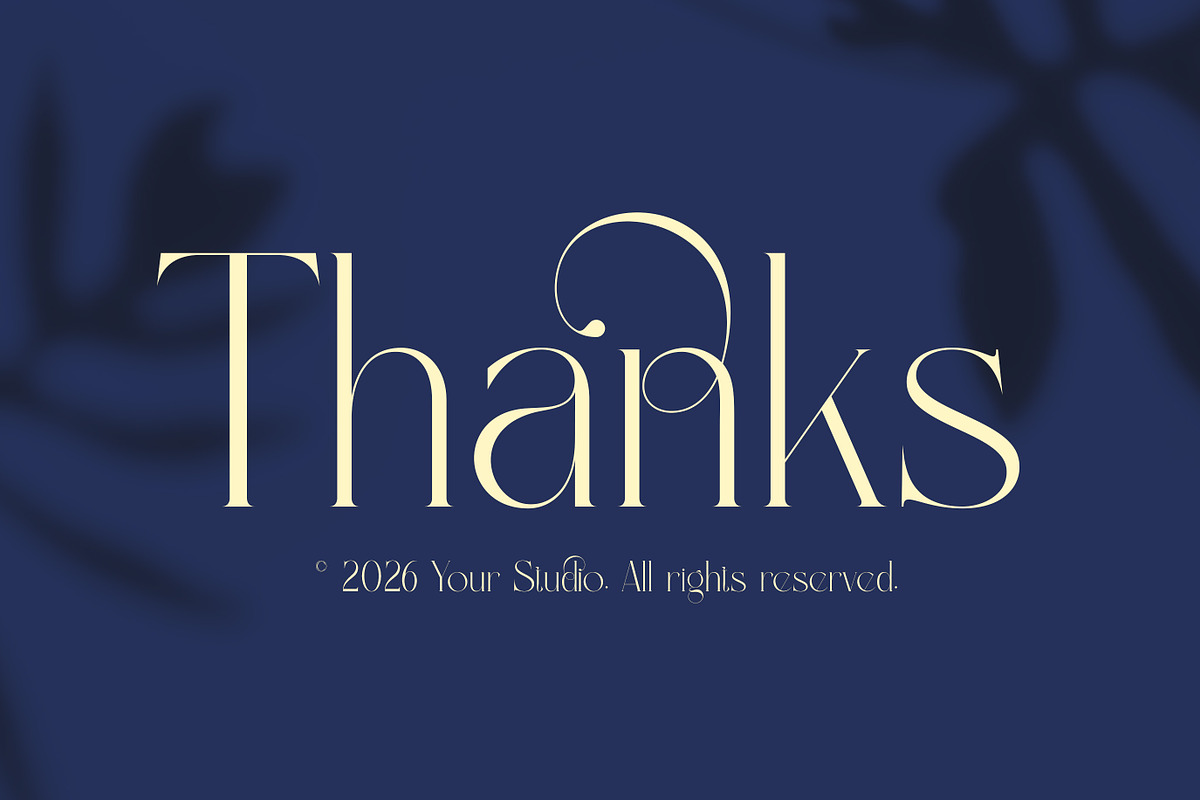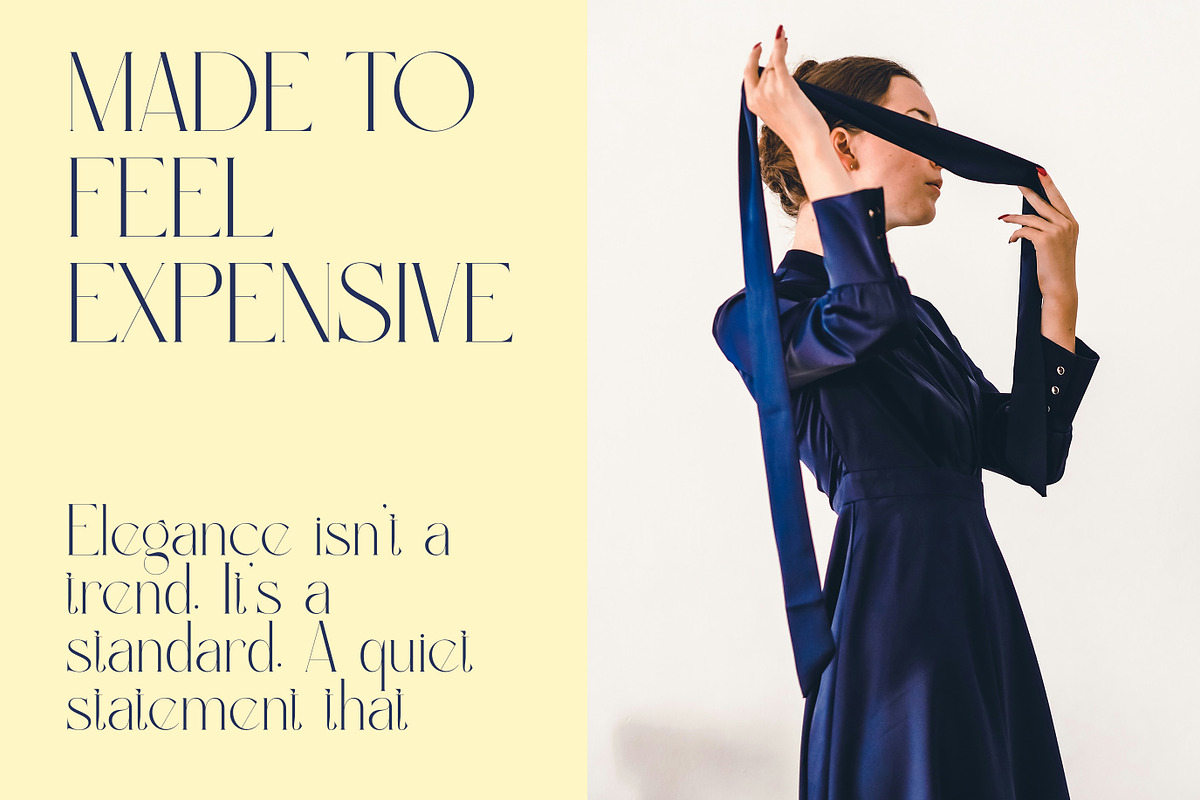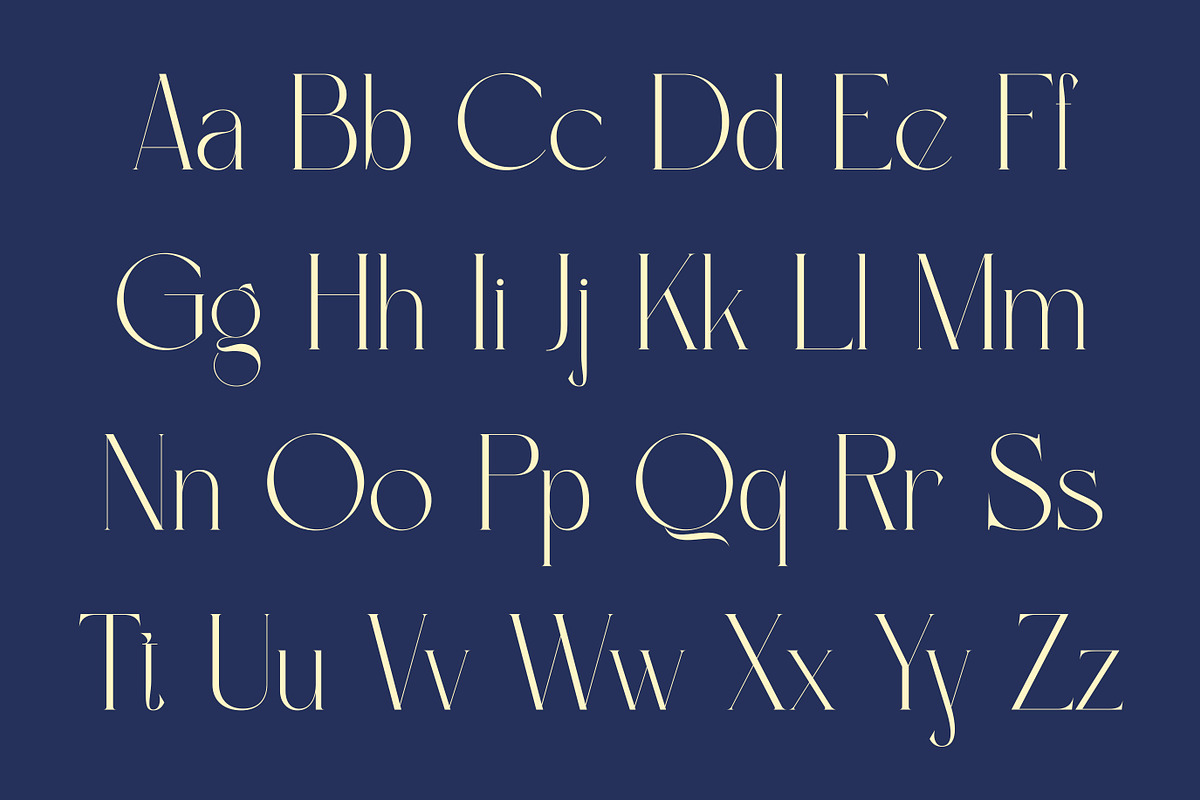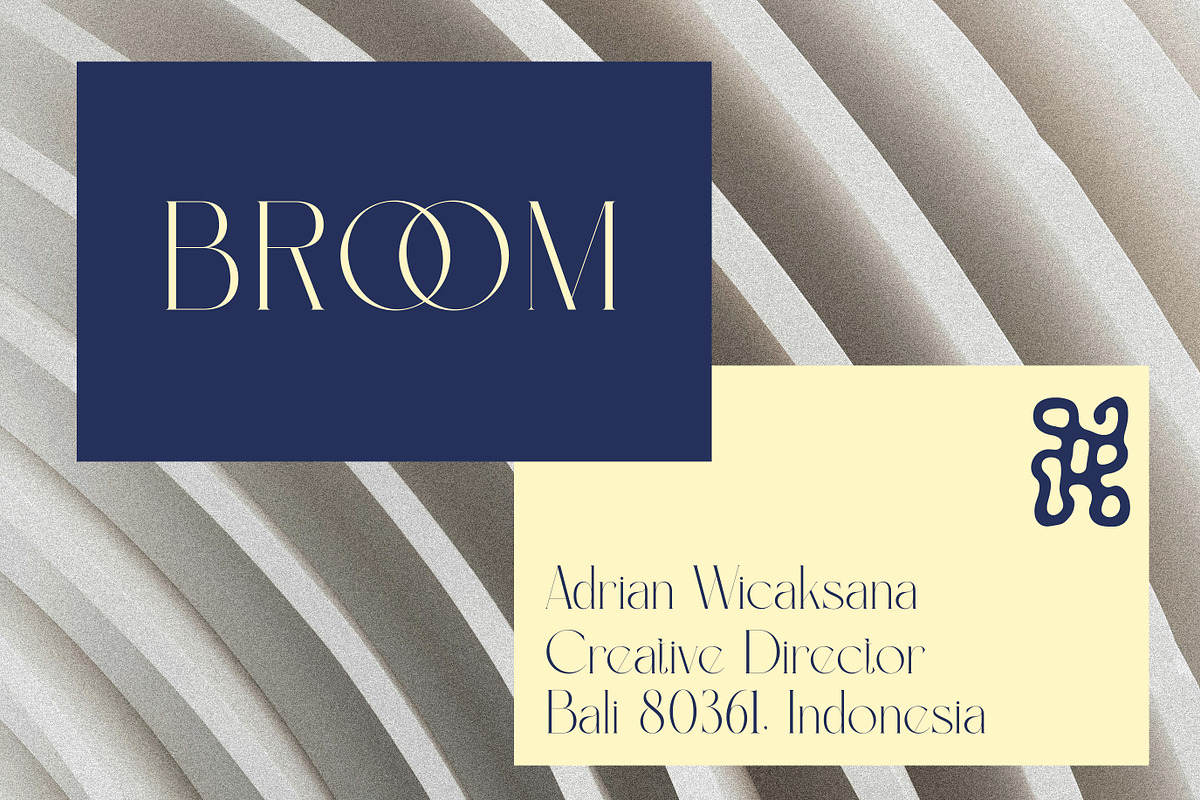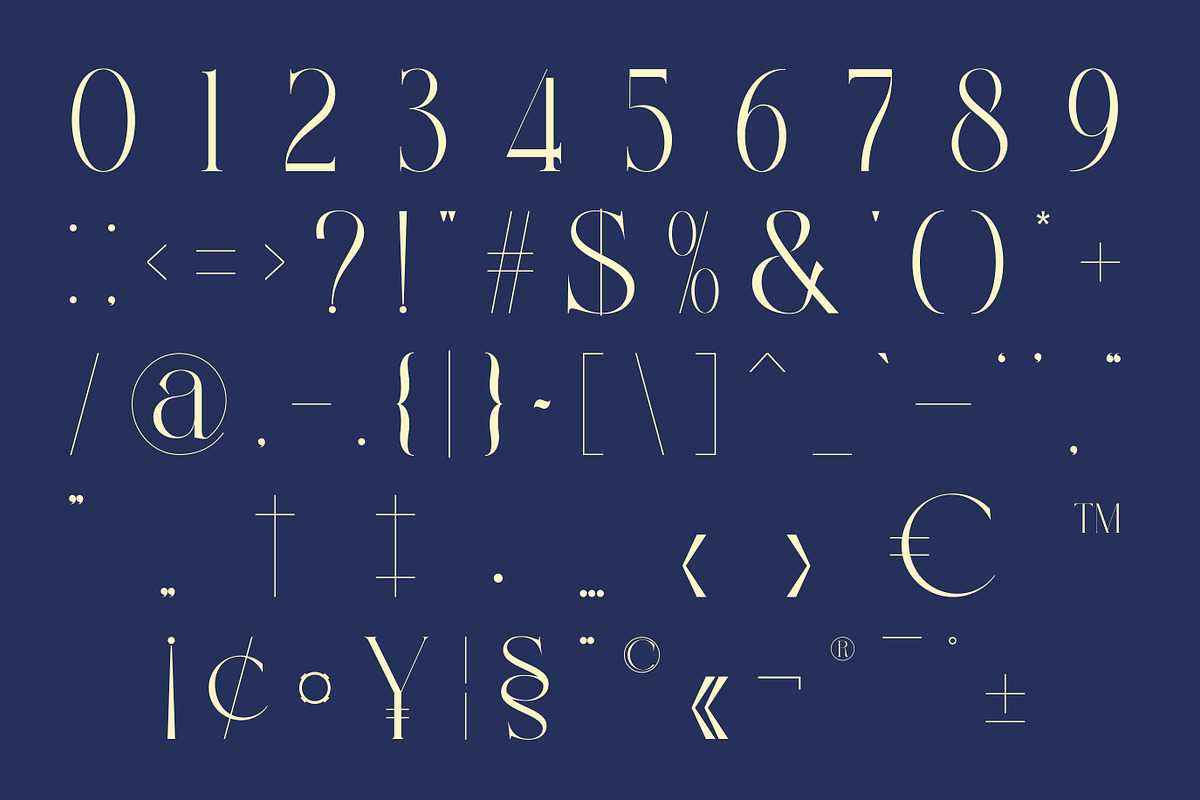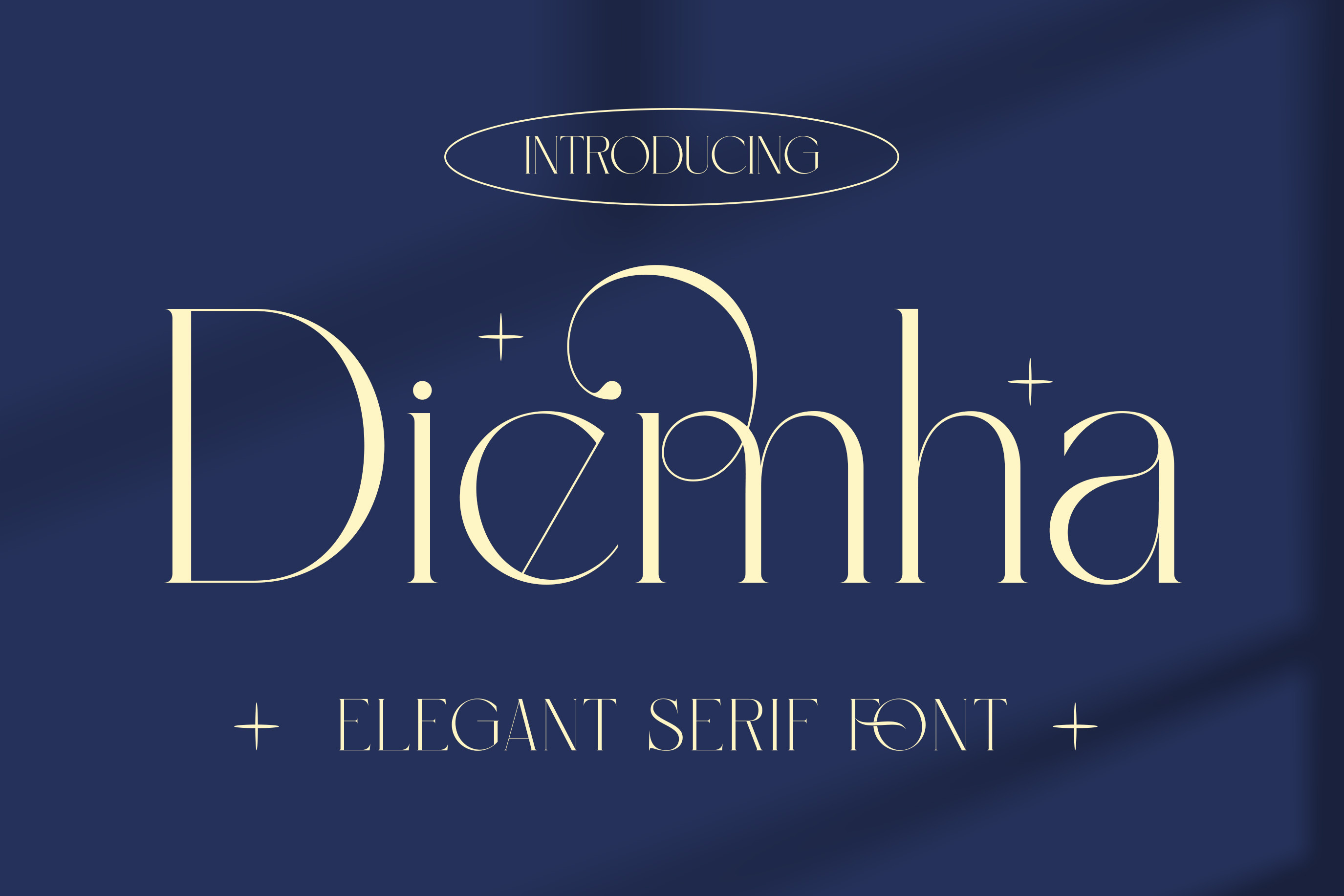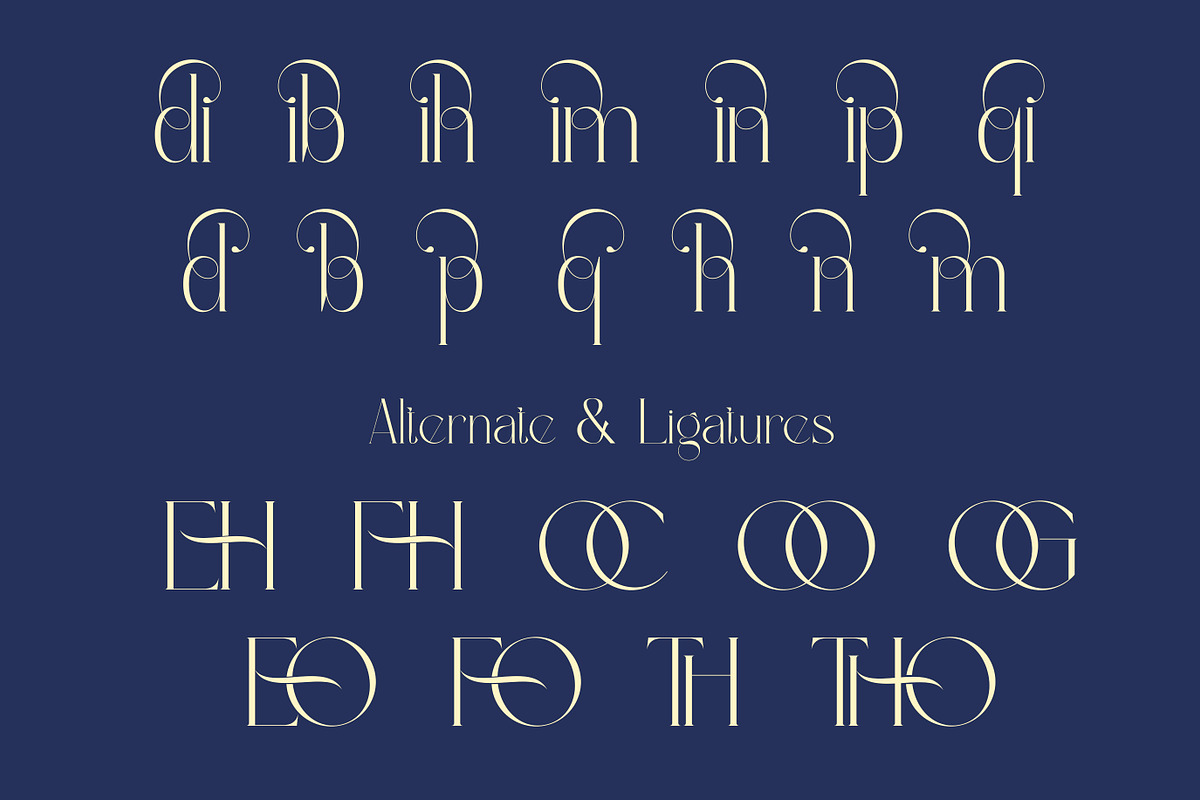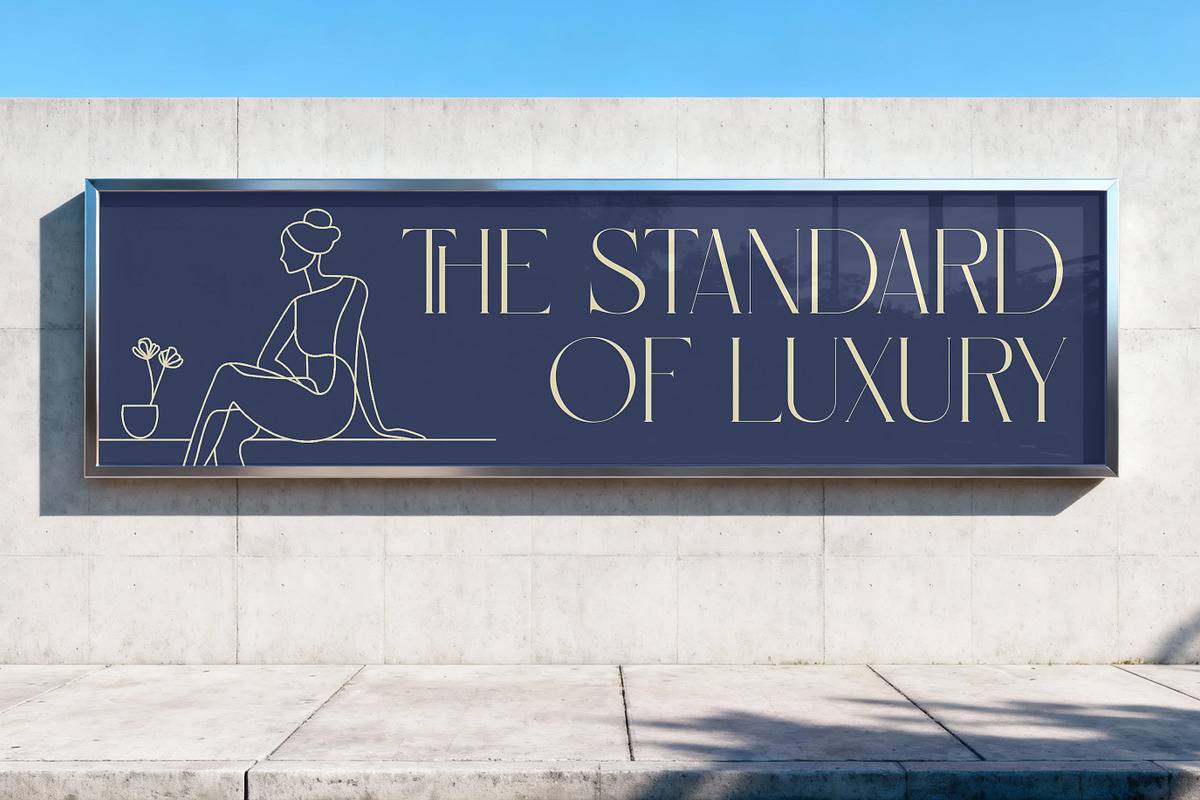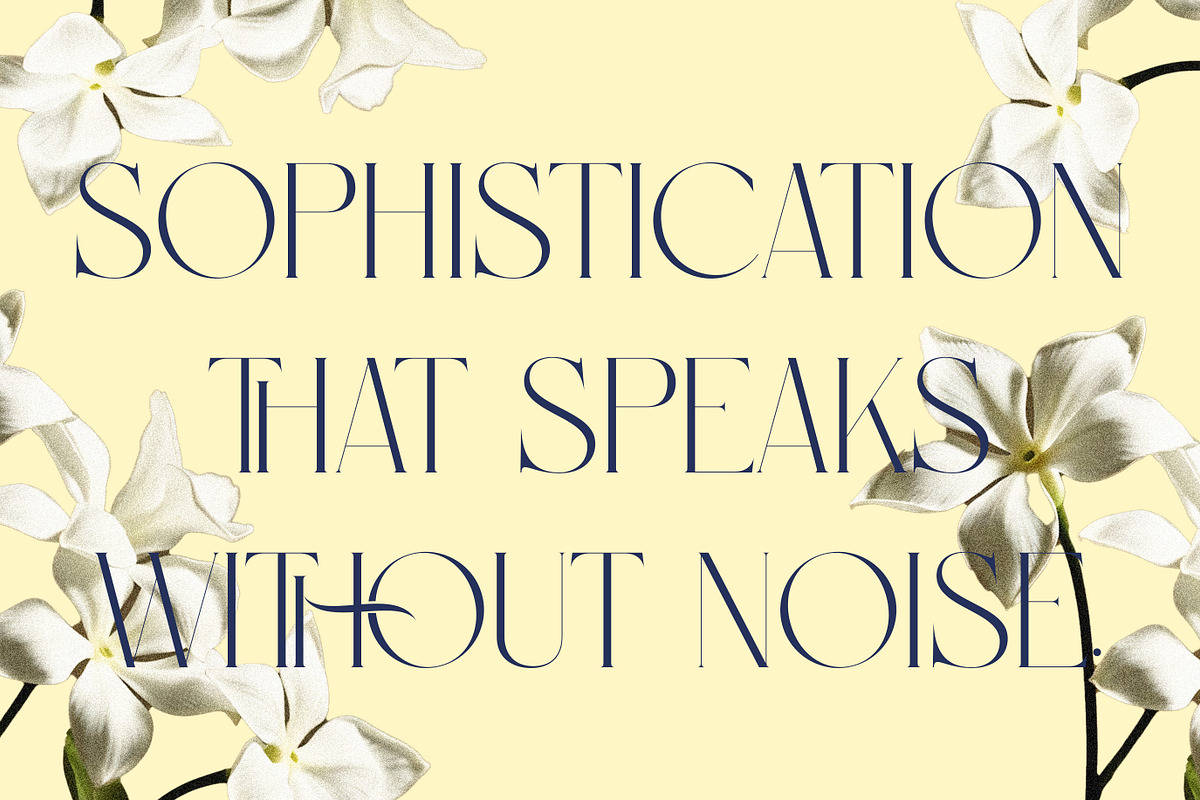
Diemha - Elegant Serif Font
Introducing Diemha the elegant, beautiful, and modern Serif. With its modern and minimalist look, Diemha brings a luxurious, classy, and clean style to your projects such as websites, modern logos, brand identities, social media quotes, wedding stationery, magazines, and more!
Diemha features unique and classy capital letters A to Z and also comes with unique alternates and ligatures making Diemha a beautiful font that can be customized for various projects and jobs you want.
Diemha is perfect for: logos, brands, wedding invitations, business cards, greeting cards, posters, magazines, social media, agenda prints, and websites.